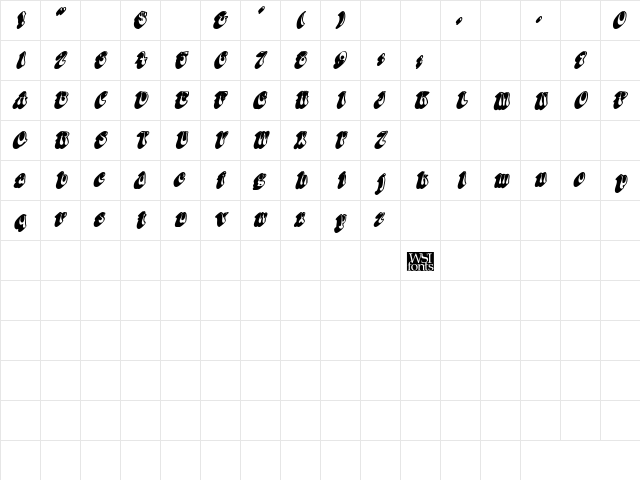
BoopShadow BoldItalic Font Preview
Design Context for BoopShadow Typeface
BoopShadow is built around its visual character rather than neutral utility — its distinctive forms are designed to make an impression at display sizes. The dynamic lean of this cut emphasises speed and emphasis in any layout. Its bold stroke weight gives it real presence on the page.
Font Pairing: Pair with a clean neutral sans-serif for body copy to let BoopShadow's character lead without overwhelming the composition.
Pro Tip: Use BoopShadow exclusively at display sizes — it was designed to be seen, not read at length. Let a neutral companion handle body copy.